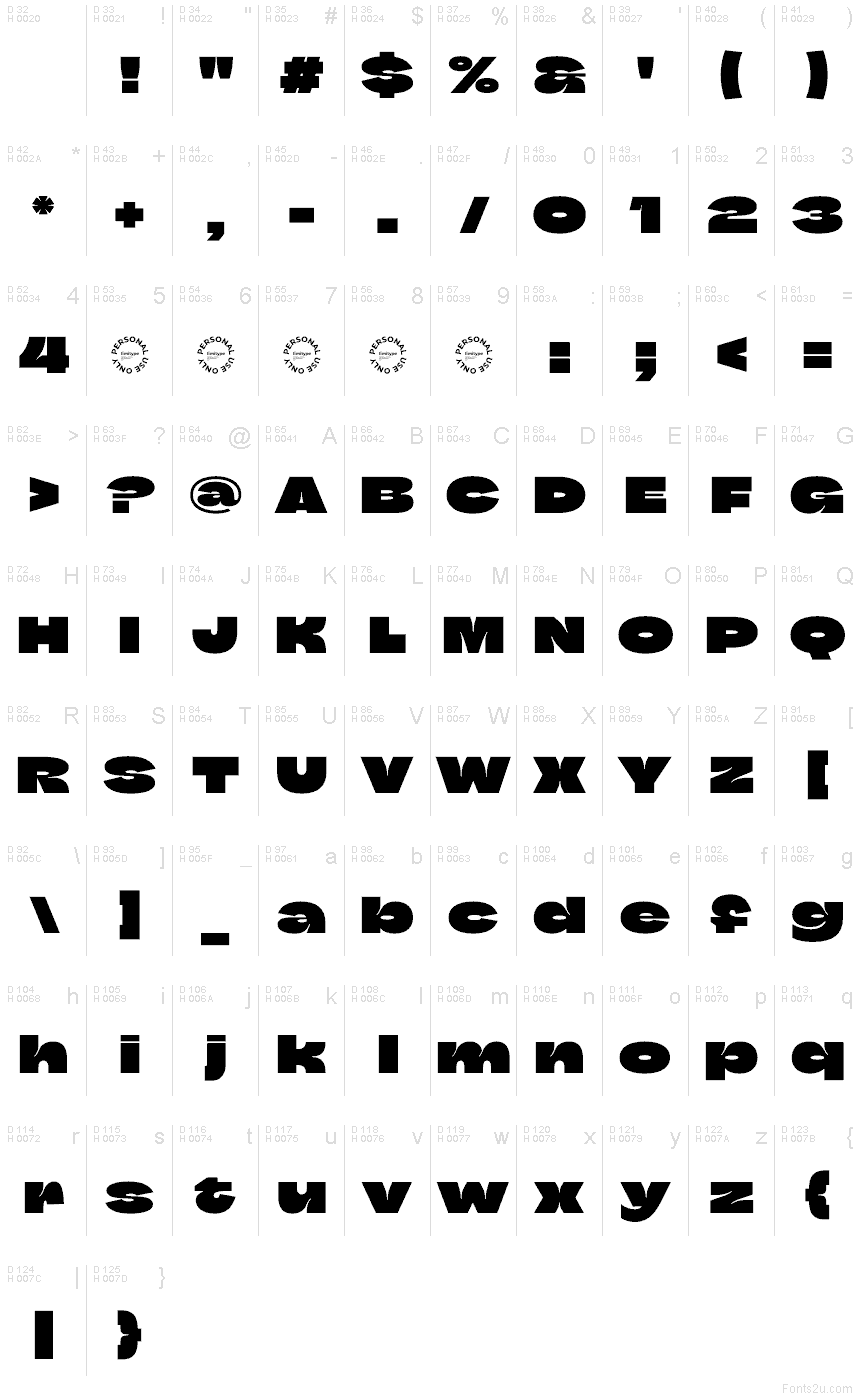
Nority Demo
Nority font by Limitype is a free bold decorative sans typeface. Its signature move is the chunky, inky weight paired with sly, chopped edges that make every word feel stamped and slightly in motion. Blocky curves pack in attitude without turning clumsy, so headlines hit hard while staying readable. It has that cut-from-vinyl vibe—thick, tactile, and a little mischievous.
Using Nority, your work instantly leans loud and confident—great for posters, streetwear logos, snack packaging, event flyers, YouTube thumbnails, album art, and stickers. Set it big with snug tracking to amplify the punch. For supporting text, pair this free font with a clean grotesk or a light geometric sans to keep the spotlight where it belongs.